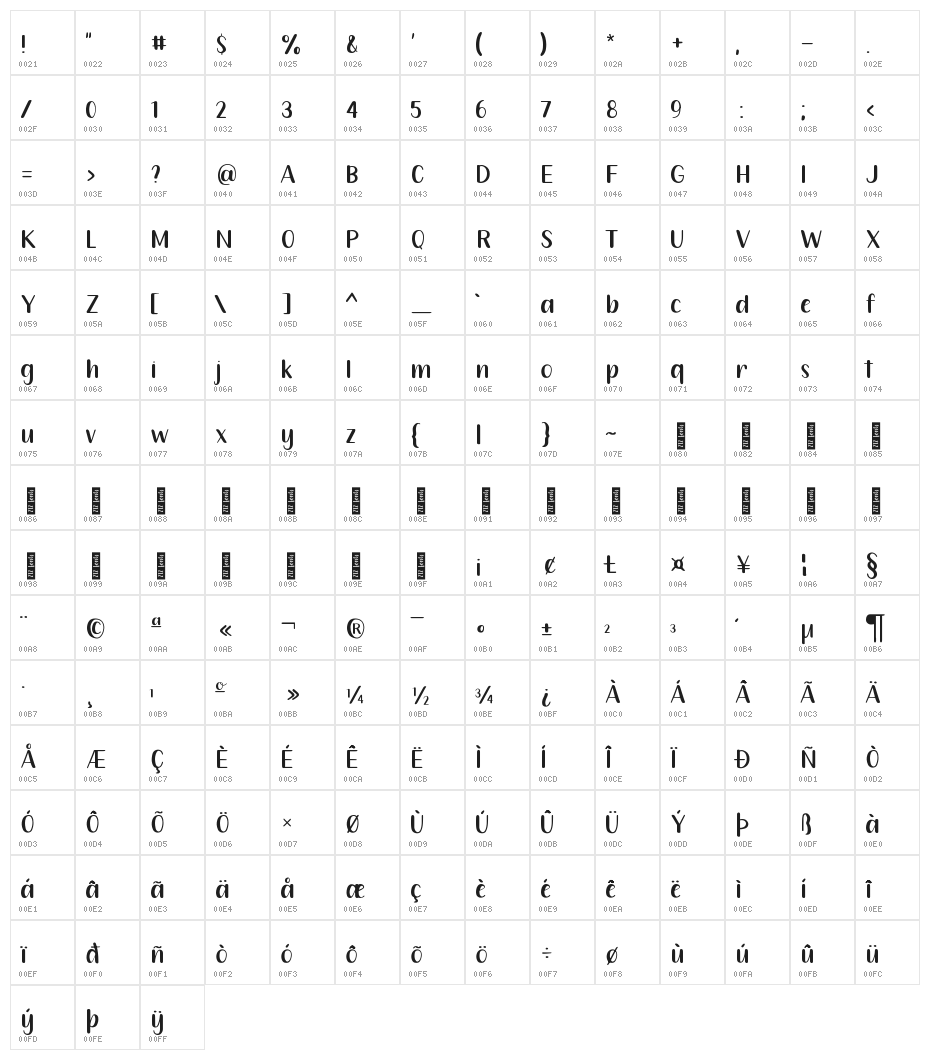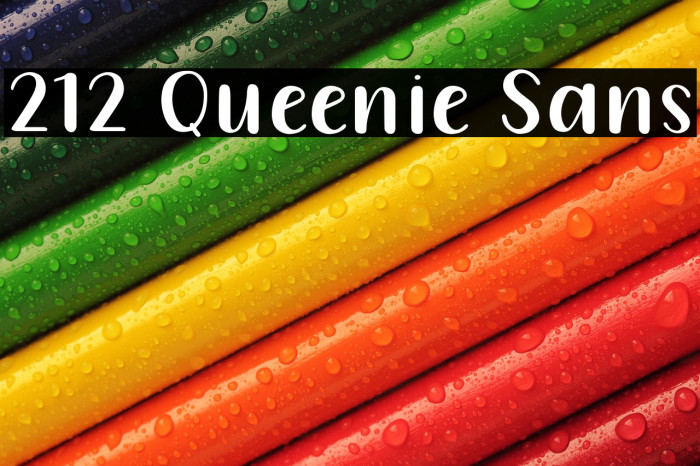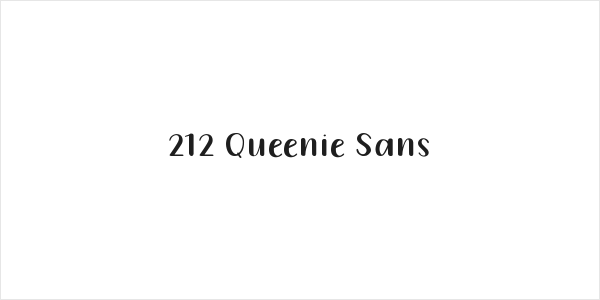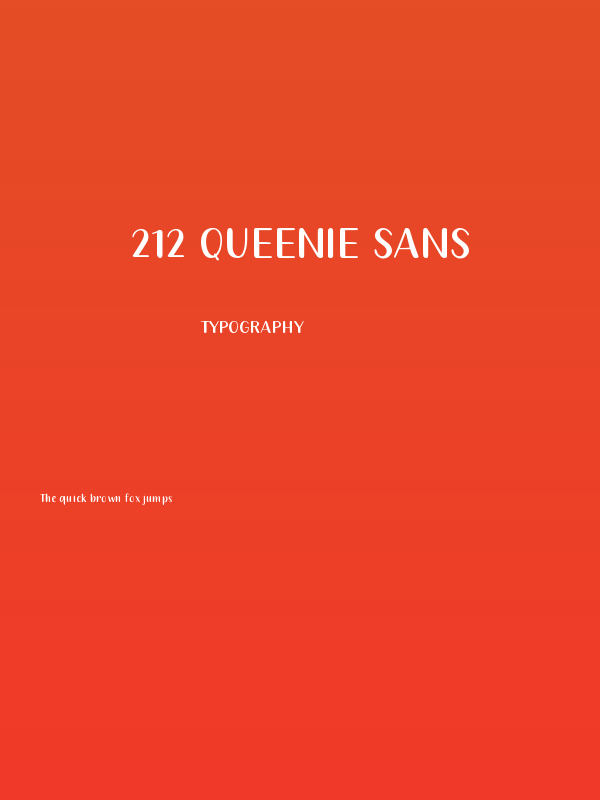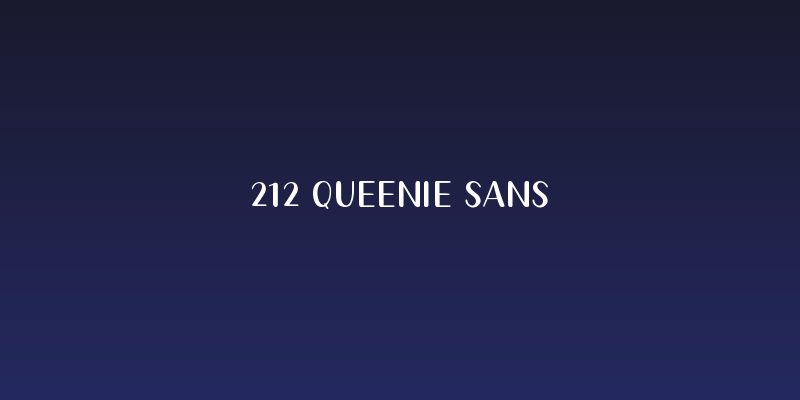
212 Queenie Sans Font
212 Queenie Sans Description
This font features a playful and modern design with a touch of elegance. The characters are rounded and slightly condensed, giving it a friendly and approachable appearance. The uppercase letters are bold and well-defined, while the lowercase letters maintain a consistent flow with smooth curves. The numerals are clear and easy to read, complementing the overall style. Special characters are creatively designed, adding a unique flair to the font. The font's versatility makes it suitable for a variety of design projects, offering a balance between readability and style.